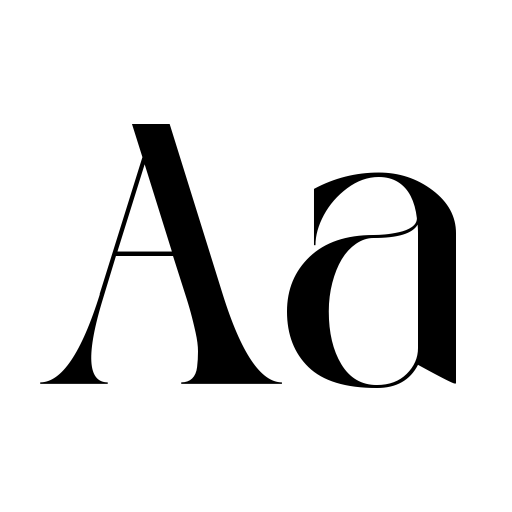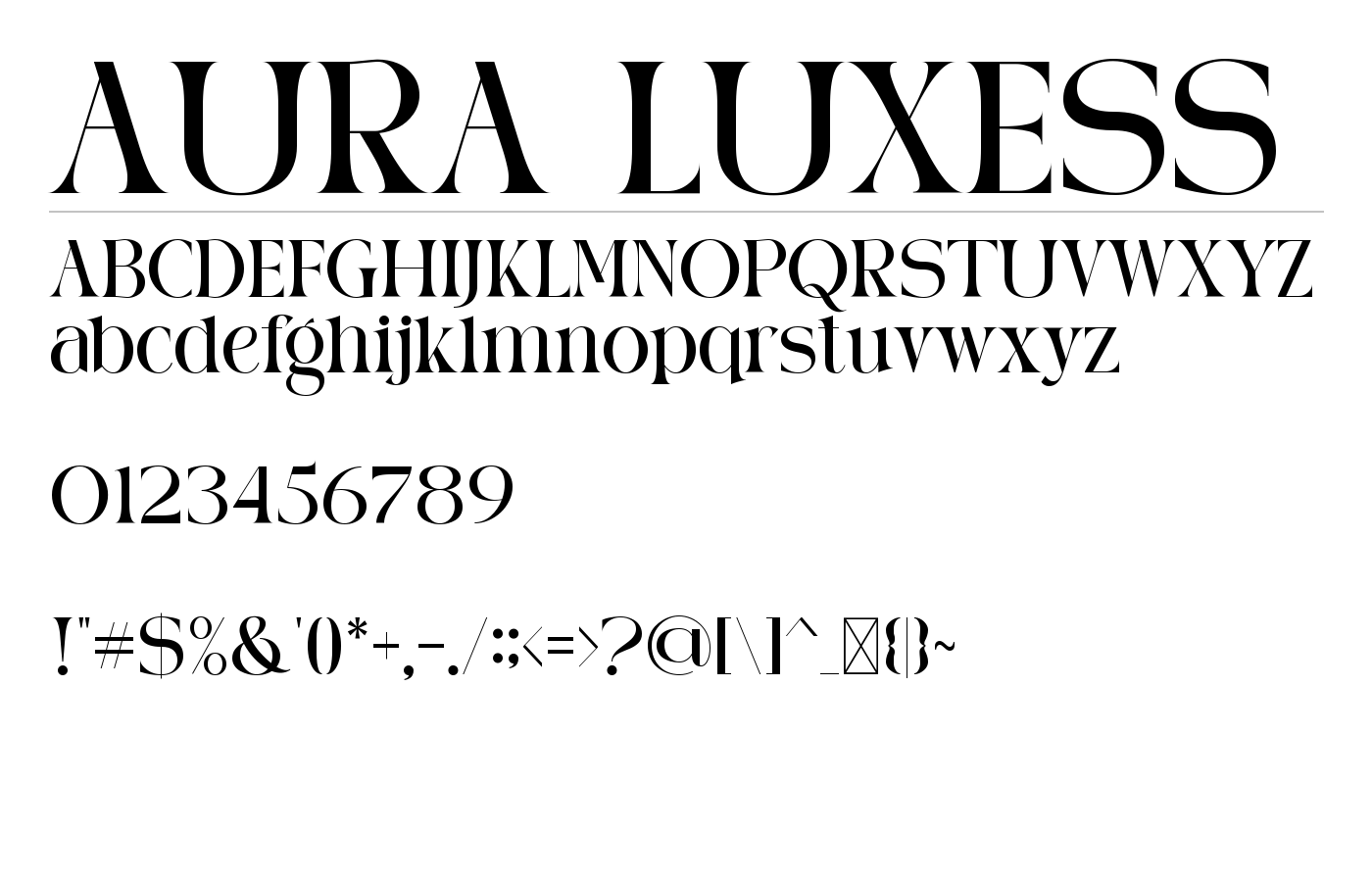
Aura Luxess is an elegant serif font with high contrast between thick and thin strokes, featuring sharp, refined serifs and a modern, sophisticated style. Its tall, narrow letterforms and distinctive details make it ideal for luxury branding, editorial headlines, and fashion design where a touch of class and exclusivity is desired. This font beautifully balances classic serif tradition with a contemporary edge, perfect for creating a polished and memorable impression.
AURA LUXESS Font
About AURA LUXESS Font